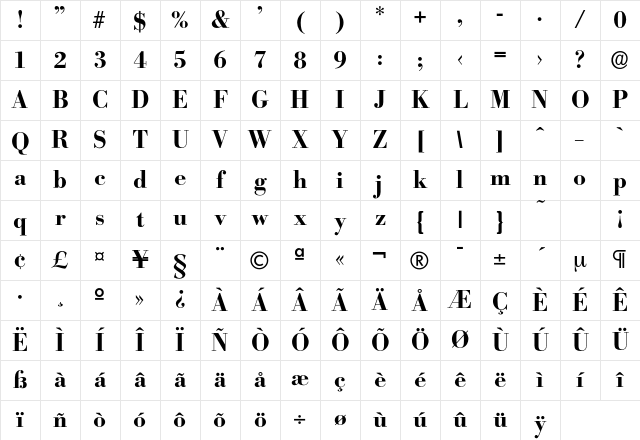
Bodoxi-DemiBold Regular
Design Context for Bodoxi-DemiBold
Bodoxi-DemiBold is a composed and adaptable typeface that performs quietly and consistently across a wide range of design contexts. Its bold stroke weight gives it real presence on the page.
Pro Tip: Use Bodoxi-DemiBold in both headline and body roles to test its range before committing to a single application.